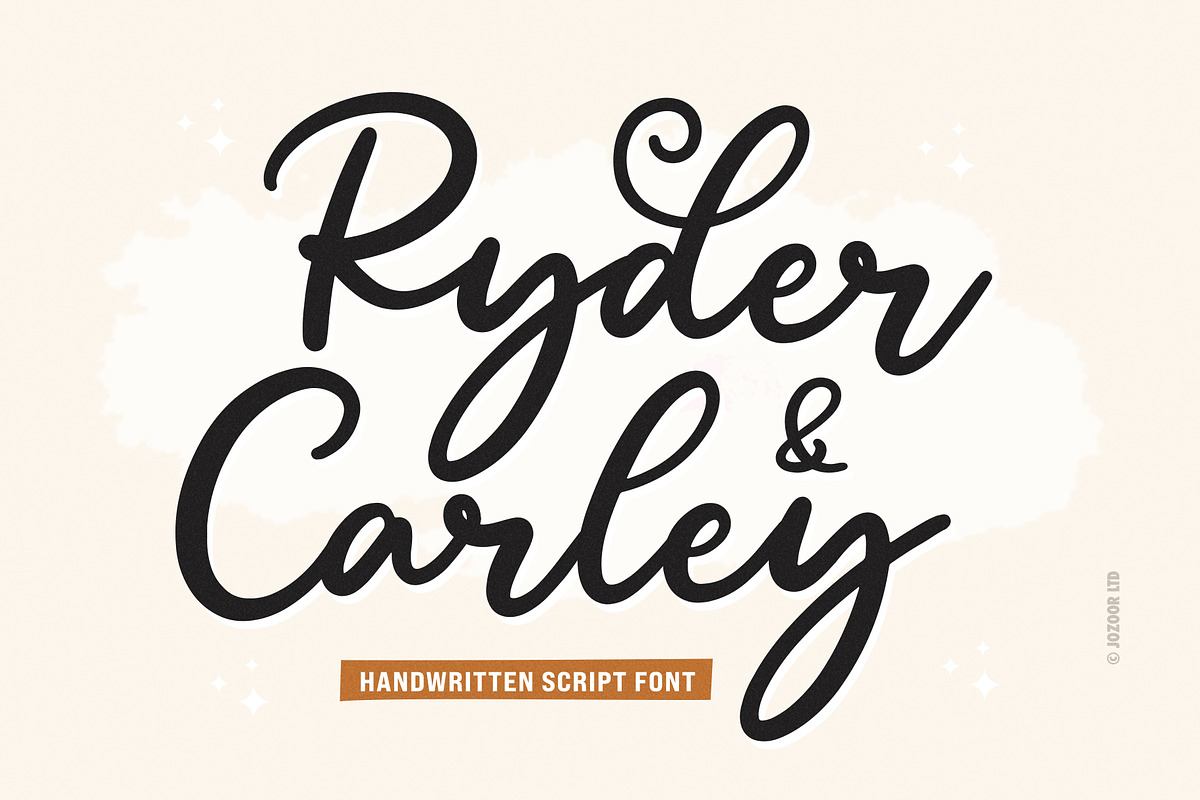
Make your designs unforgettable with Ryder Carley Script Font Free Download — a modern and stylish handwritten script font that combines elegance with personality. Perfect for signature-style branding, boutique logos, wedding invitations, packaging, and social media content, Ryder Carley delivers a confident, sophisticated flair.
This font features fluid, natural strokes with a refined finish that makes every word feel like a personal touch. It includes uppercase and lowercase characters, punctuation, numerals, and multilingual support — giving you the creative freedom to build elegant, custom designs.